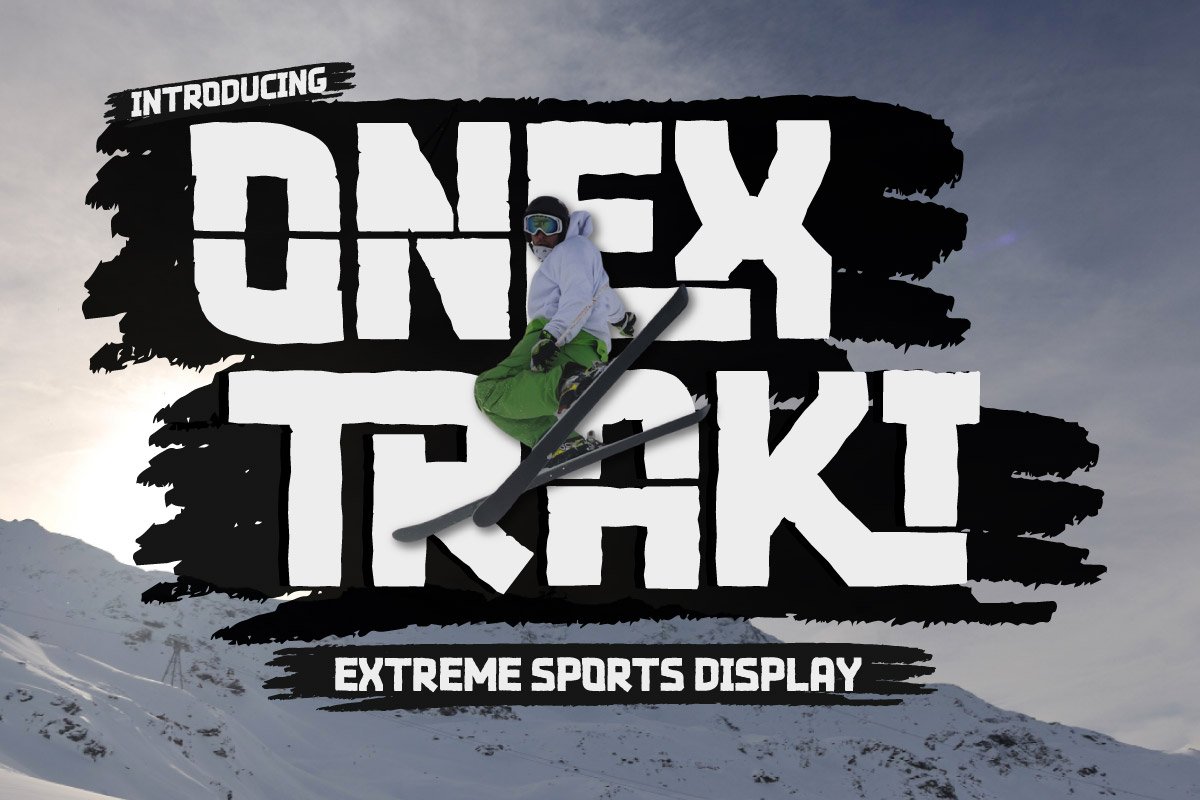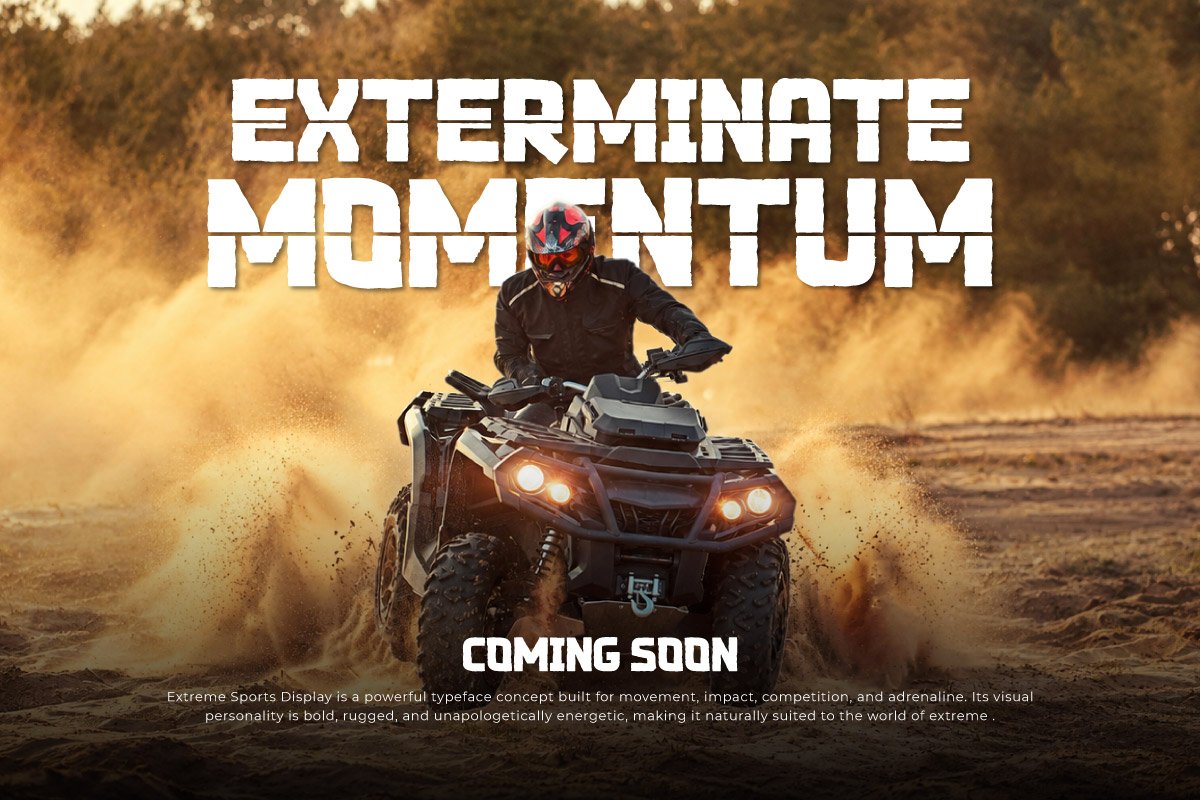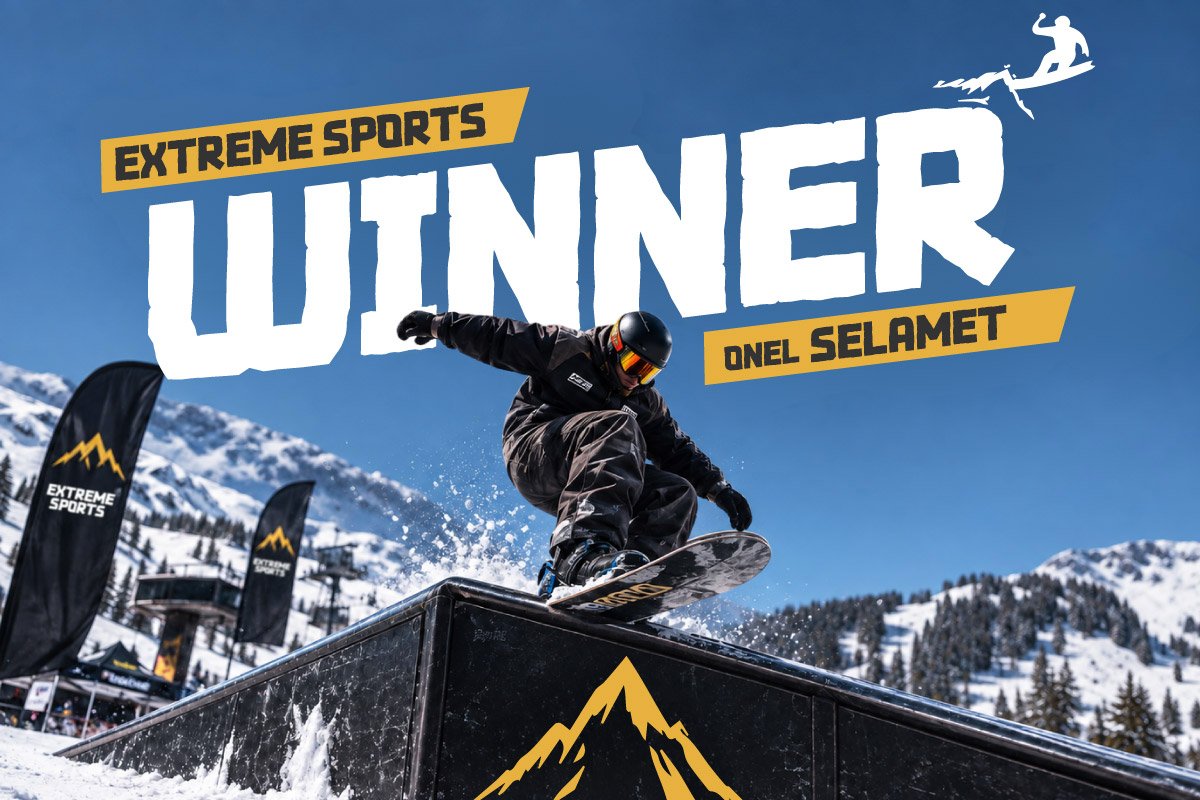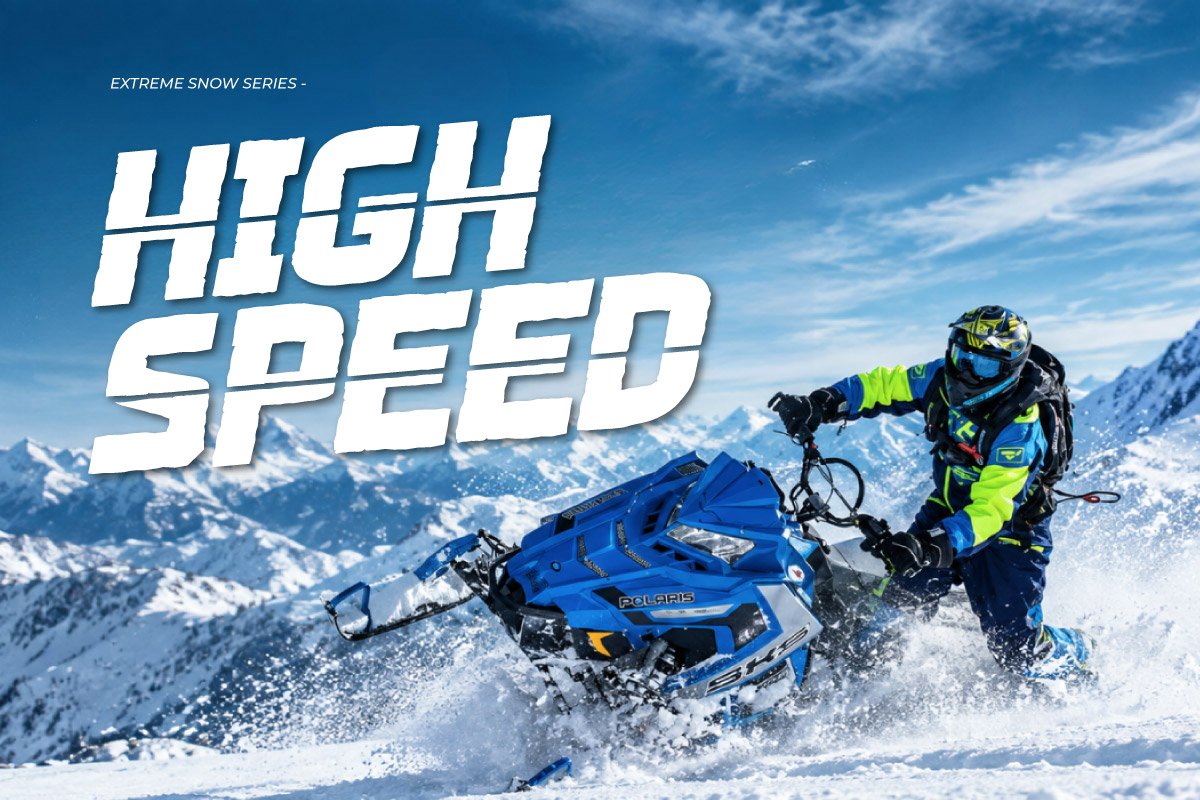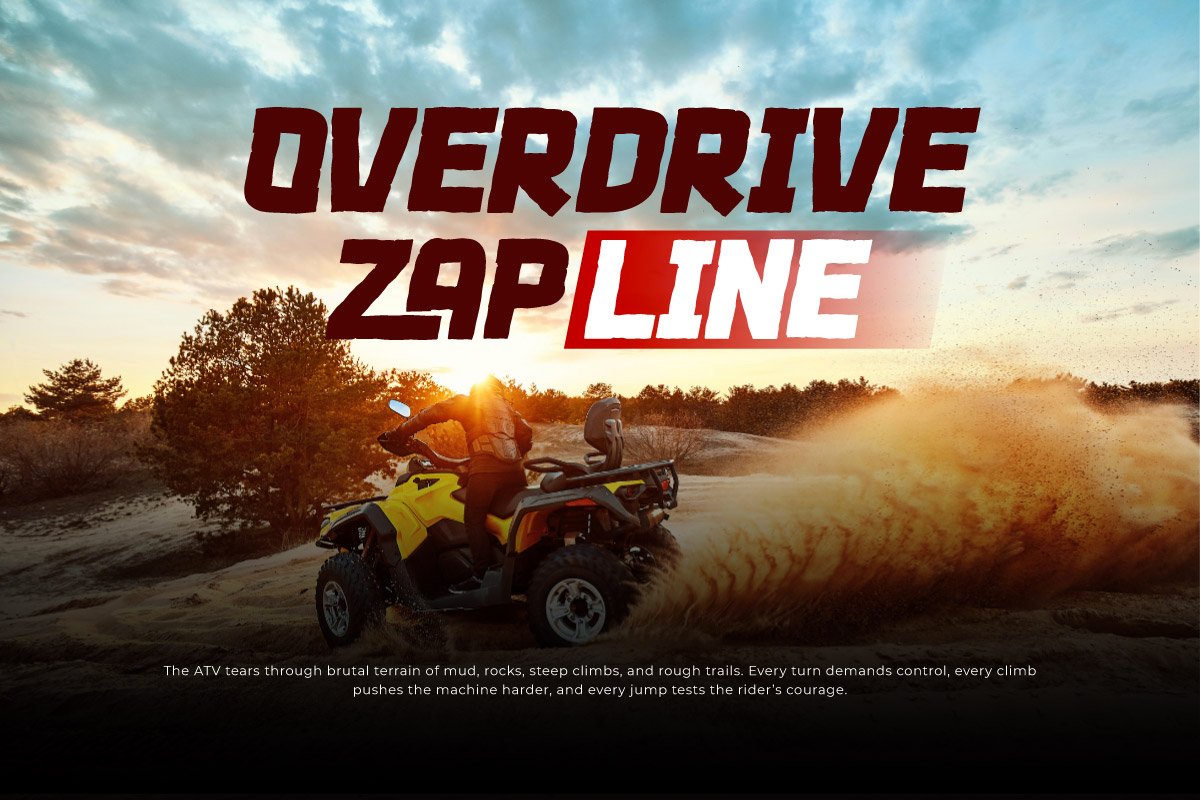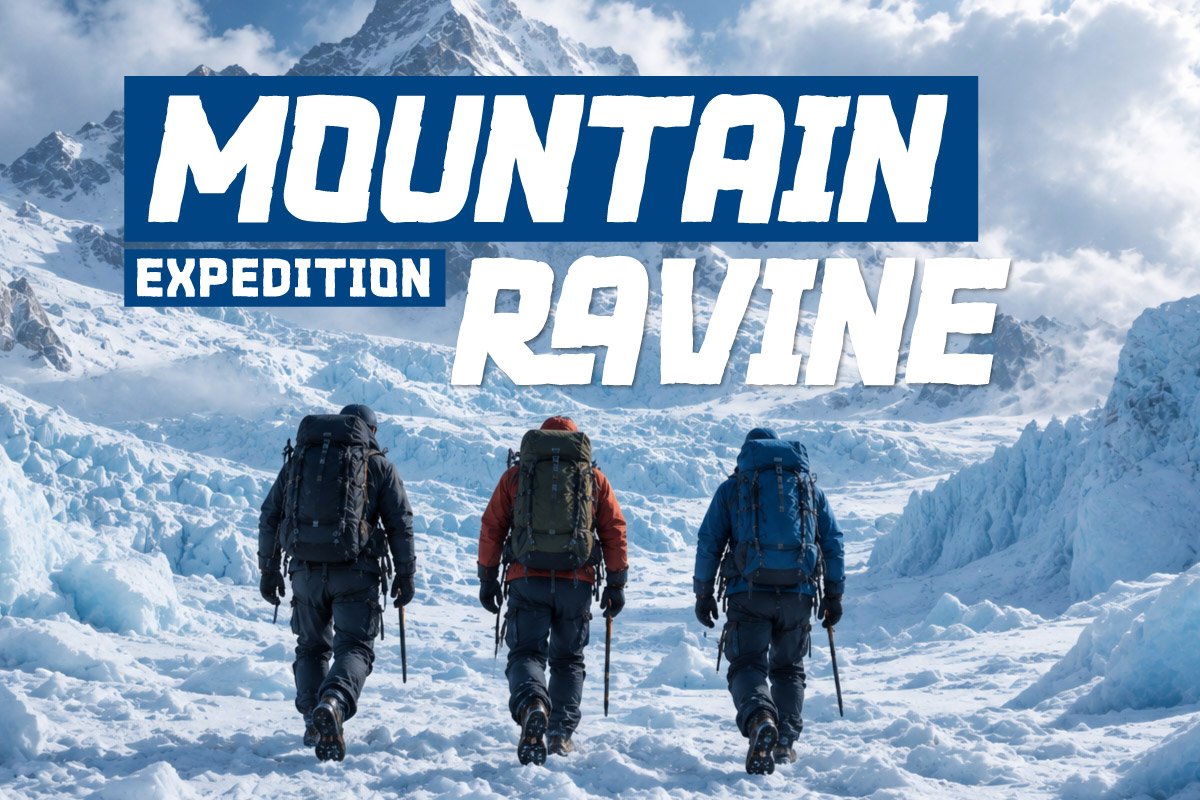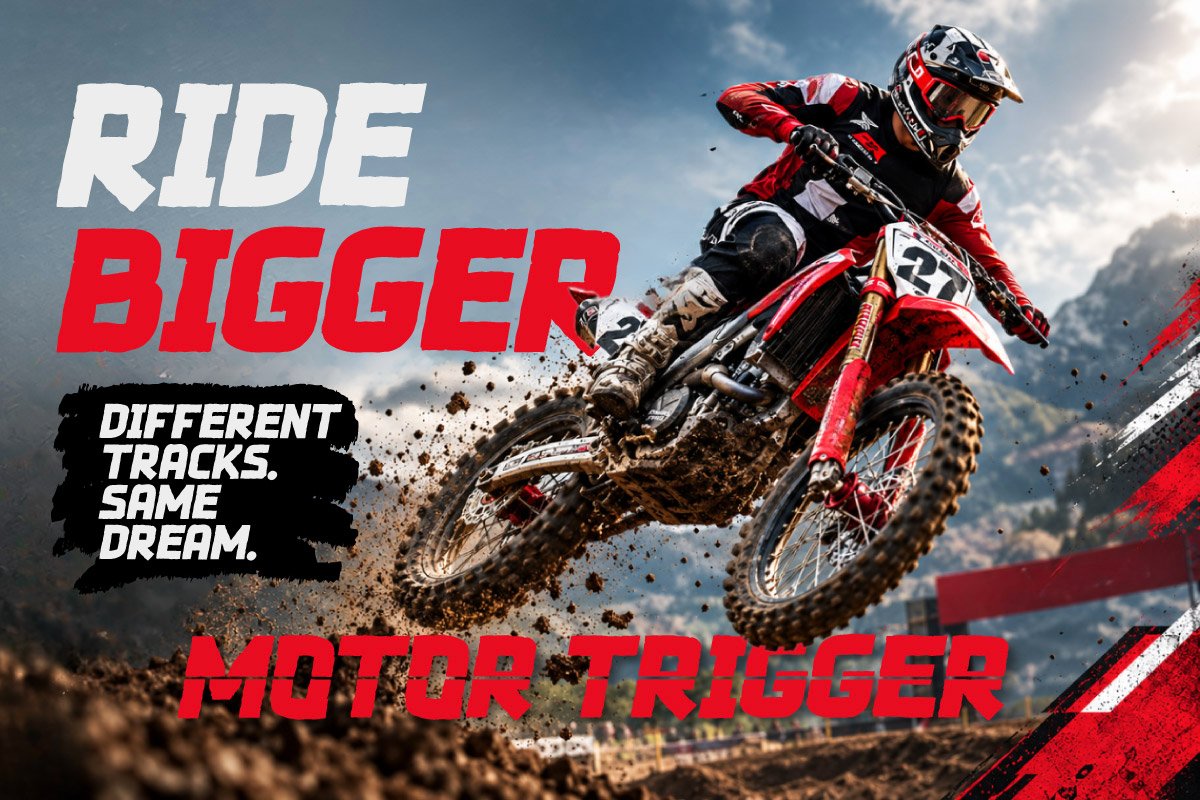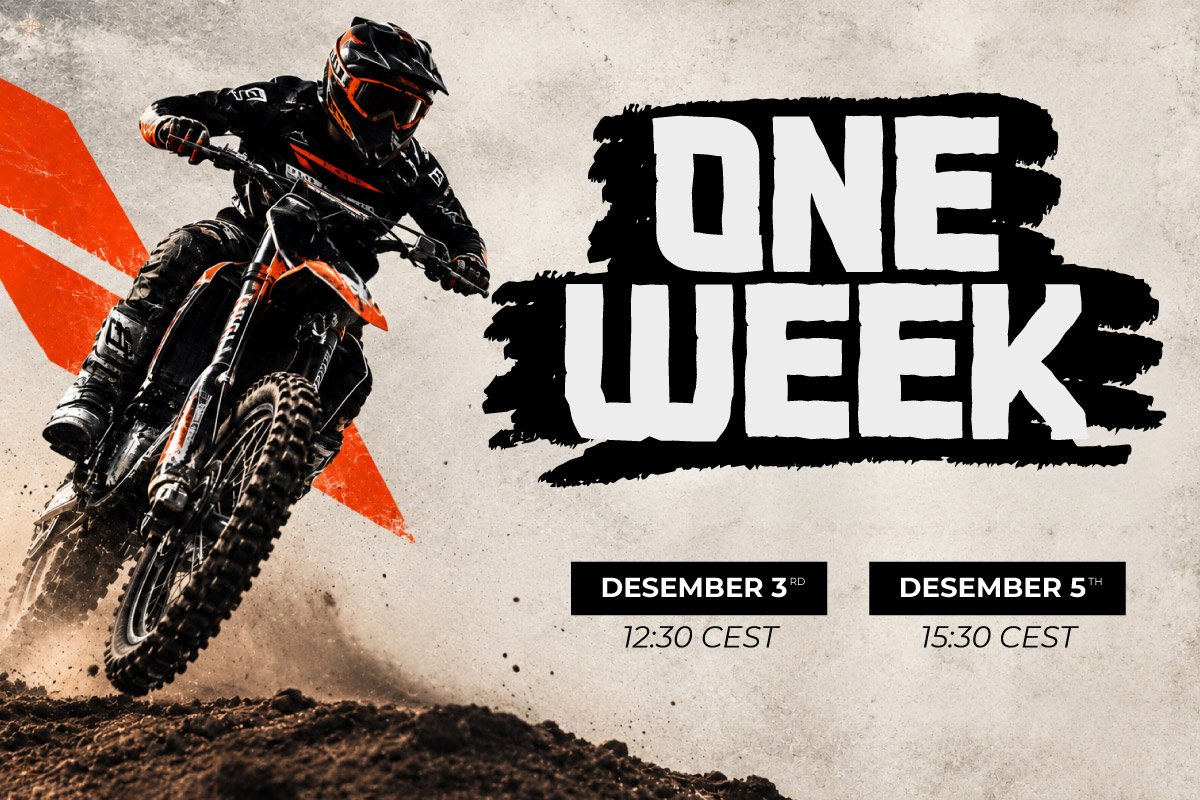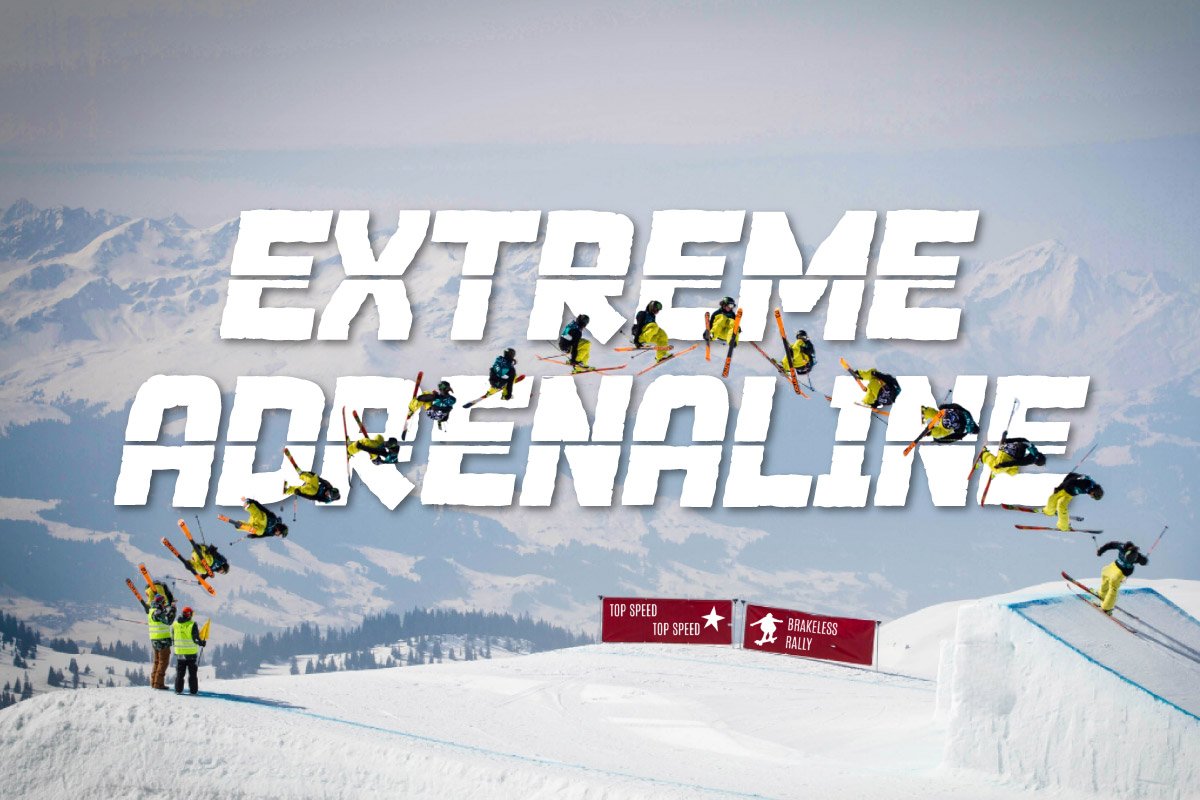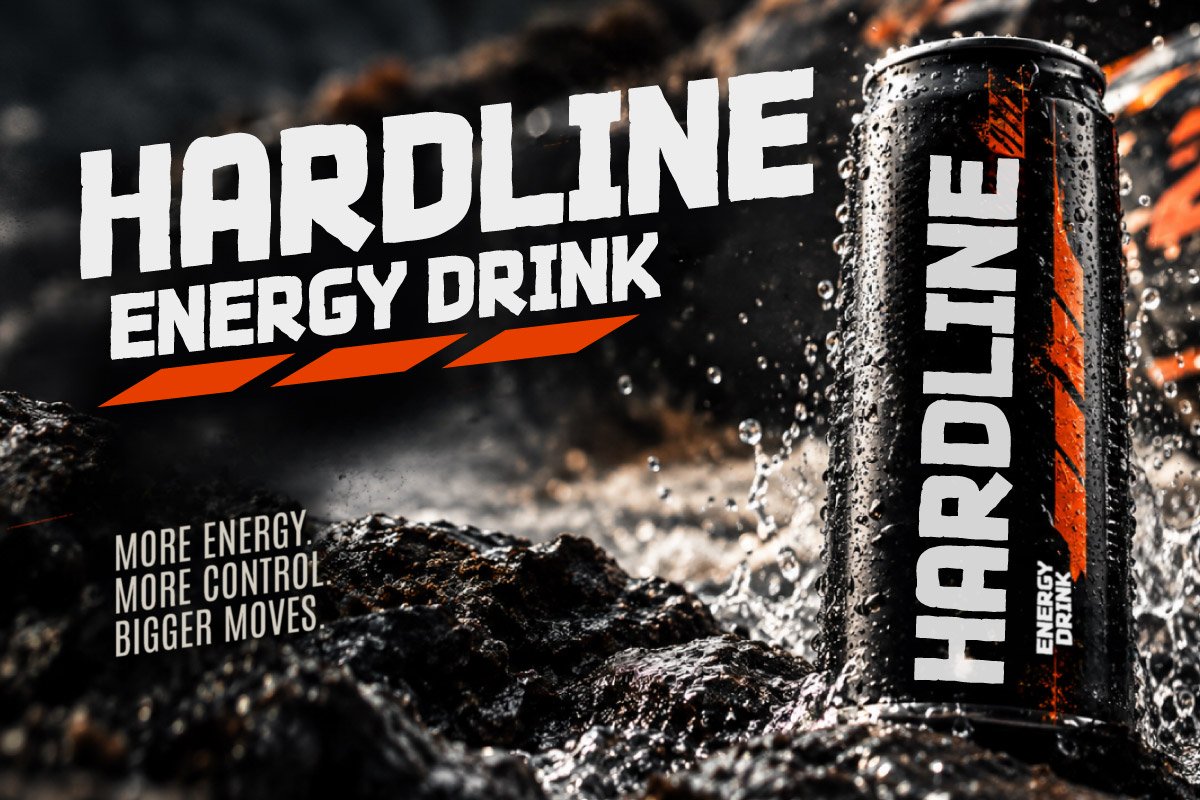
- Onex Traki – Extreme Display Font
Onex Traki – Extreme Display Font is a bold, aggressive, and high-impact display typeface designed to bring raw energy, speed, and adrenaline into your designs. Featuring heavy block lettering, dynamic italic styling, and rugged distressed details, this extreme sports font delivers a powerful visual statement inspired by motocross, off-road adventures, racing culture, and high-performance action.
Perfect for all-terrain sports, motocross branding, racing graphics, vehicle and board decals, outdoor adventure campaigns, and extreme sports merchandise. Its strong and energetic appearance makes every headline stand out, whether you’re designing gear packaging, promotional posters, event graphics, or eye-catching video covers.
Onex Traki is also an excellent choice for snowboarding, mountain biking, survival expeditions, and action-packed digital content. From aggressive sports branding to modern streetwear designs, this versatile display font adds a sense of movement, toughness, and fearless attitude to every creative project.